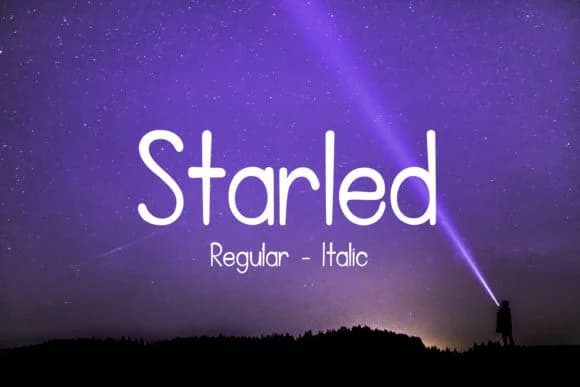
This typeface captures that signature handwritten charm that draws people in immediately. Starled by da_only_aan brings genuine character to any project where personality and authenticity matter most.
The font shines in contexts where a touch of human warmth makes all the difference. Hand-lettered greeting cards with custom messages feel like something a friend actually wrote. Boutique product labels for artisan skincare or small-batch preserves convey care and attention to detail. Personalized wedding invitations printed with Starled stop guests in their tracks because they feel personal, not generic off-the-shelf templates. Small cosmetics or skincare brands use it for packaging that whispers luxury through genuine expression rather than trying too hard. The letterforms flow naturally without sacrificing readability, hitting that crucial balance between expressiveness and clarity that separates working script fonts from purely decorative ones. Since you get both regular and Italic versions, you can create visual rhythm and emphasis within your layouts while keeping everything cohesive.
Starled performs best alongside a neutral, minimal sans-serif for body copy and supporting elements. That pairing lets your script breathe as a headline or accent while the sans keeps information clear and scannable. Pick it up on Creative Fabrica and watch how quickly this font brings warmth and personality to your designs.
Starled Font is a script font that shines as a display or heading face. Pair it with a clean sans-serif or serif font for body text β the contrast creates a clear hierarchy while the two styles stay balanced and easy to read.
Starled Font